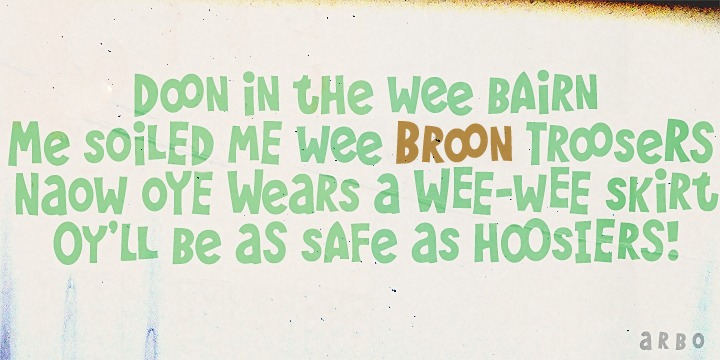
A revival of a rare Larabie Fonts typeface from 2000. Many characters have been redrawn. Spacing and kerning has been rebuilt and the character set has been expanded.
Included: OpenType double letter ligatures, numeric ordinals and fractions.